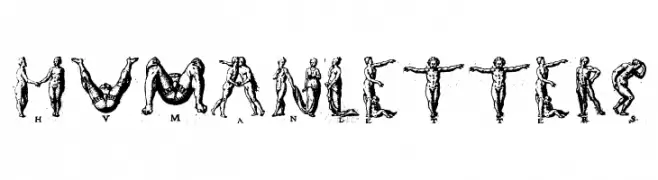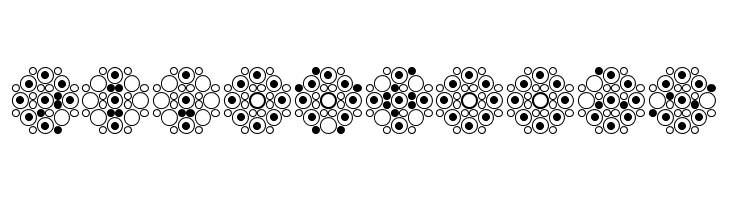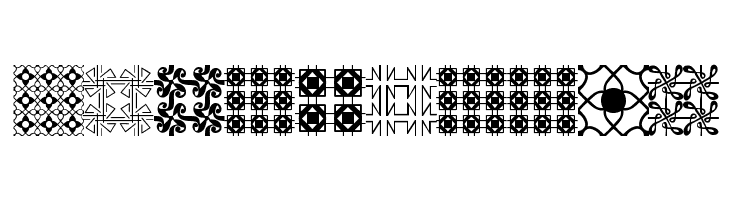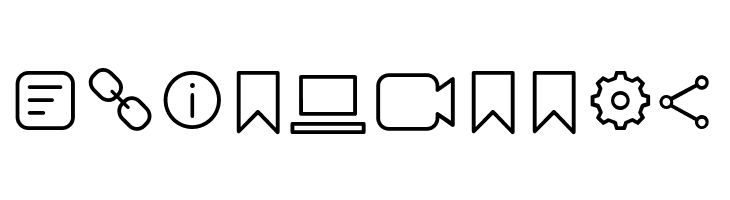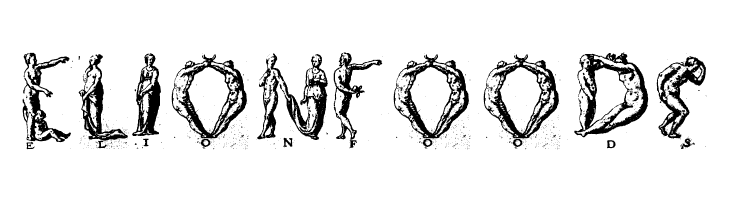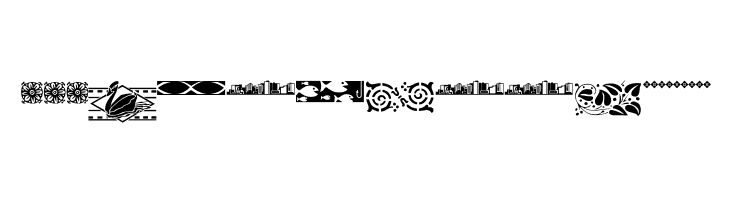
( softhunterdevil - Saptarshi Bagchi )
Pixel-art decorative font with nightscape illustrations.
( Cioroianu Stefan Cristian )
A unique font where human figures form each letter, offering a bold and artistic style.
( LadyTimeless - graphxgonewild.com/ )
A decorative set of geometric symbols resembling jewelry components.
( LeChefRene - members.aol.com/lcrfonts/ )
A decorative border and dingbat set with assorted intricate motifs.
( Pixel Kitchen )
Intricate circular patterns resembling fossil imprints, highly decorative.
( Rafael Dinner - alum.mit.edu/www/rdinner/fonts.html )
A bold, three-dimensional font with a metallic sheen and futuristic design.
Pattern-based decorative font with geometric and ornamental motifs.
A set of minimalist, line-based icons with a modern and clean design.